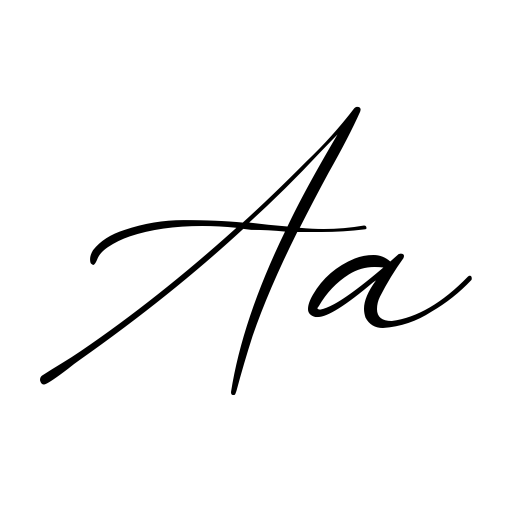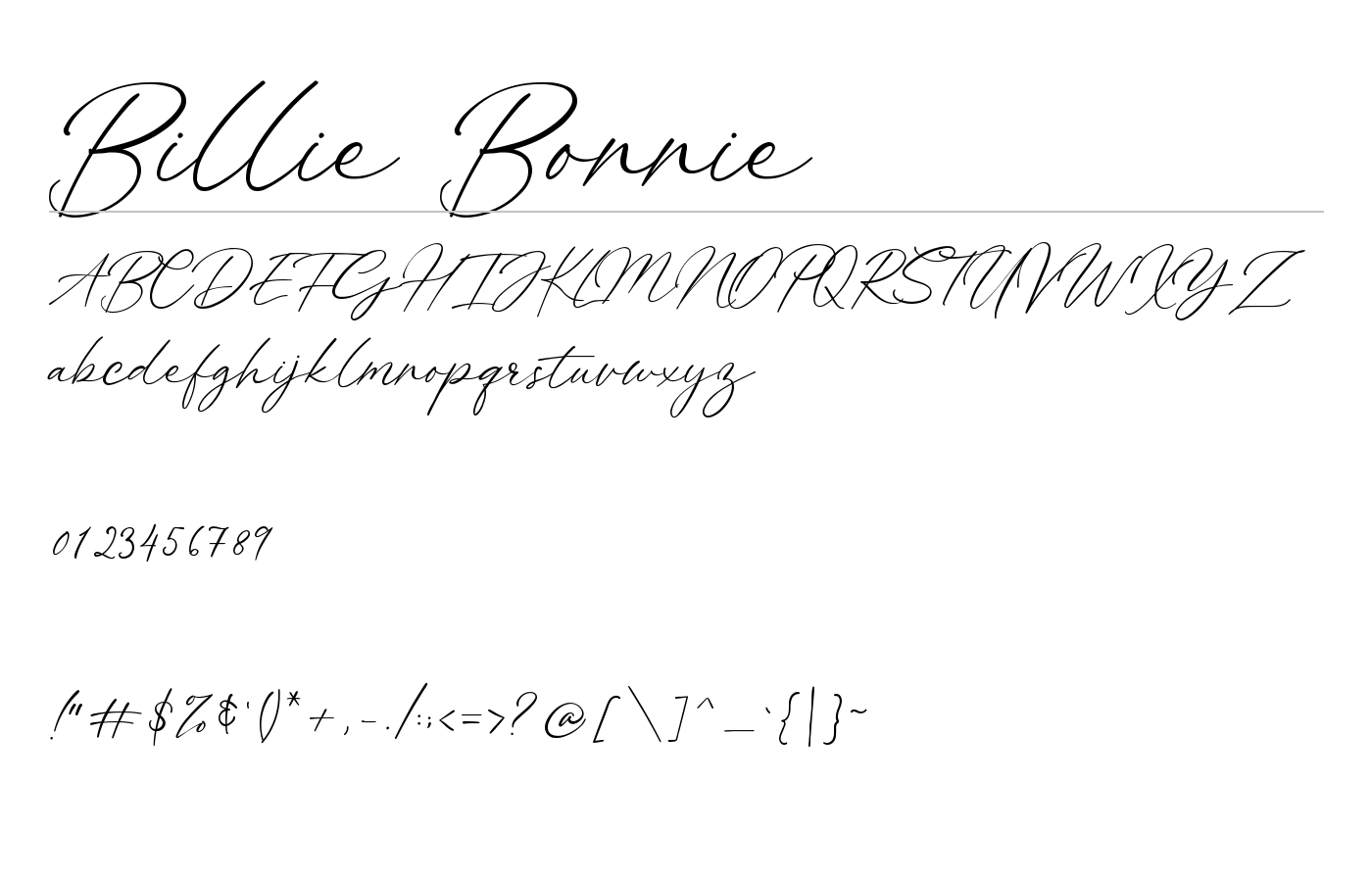
Billie Bonnie is a delicate and elegant script font with a graceful, handwritten style characterized by thin, flowing strokes and a light weight. Its tall x-height and smooth, natural curves give it a refined yet approachable feel, making it ideal for luxury branding, wedding invitations, and stylish editorial designs. This font works beautifully where a personal, sophisticated touch is needed without overwhelming the layout.
Billie Bonnie Font
About Billie Bonnie Font